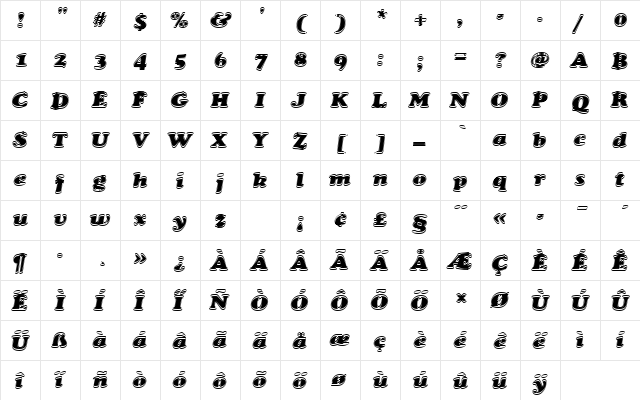
CooperBlaDBolItaIn1 Regular
Design Context for CooperBlaDBolItaIn1 Typeface
CooperBlaDBolItaIn1 is a composed and adaptable typeface that performs quietly and consistently across a wide range of design contexts.